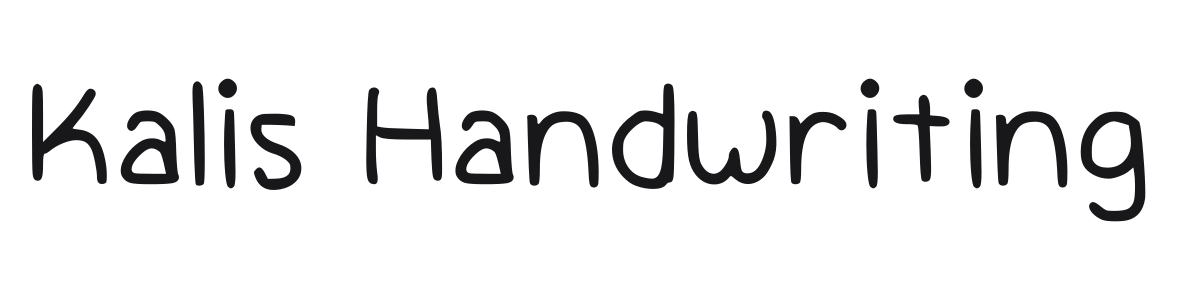
Kalis Handwriting
by Kali D
Kalis Handwriting is a casual pen-style font that captures the look of quick, natural handwriting without a brush or calligraphic slant. Slight irregularities in letterform height and stroke direction keep it feeling genuinely personal rather than mechanical. It brings warmth to packaging, kids' content, and any project that needs a human touch.